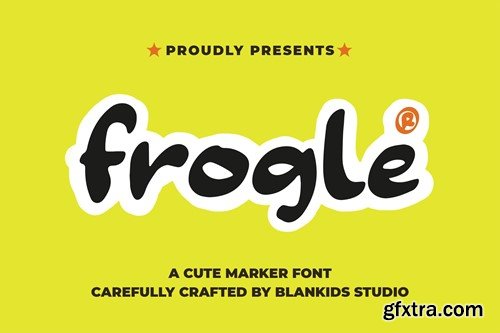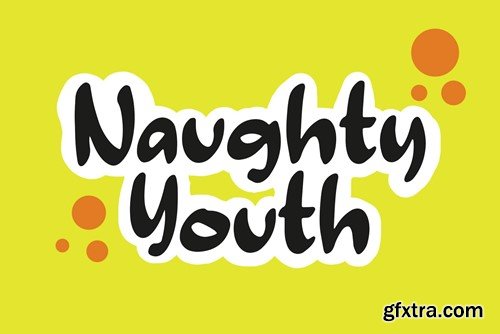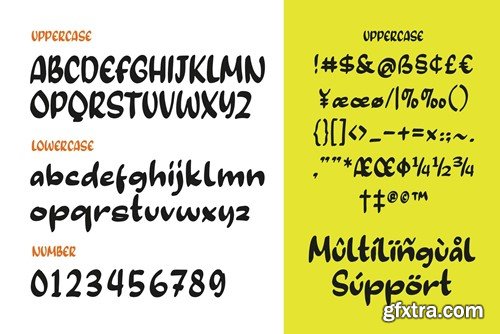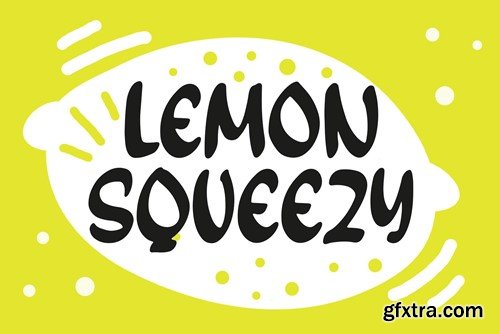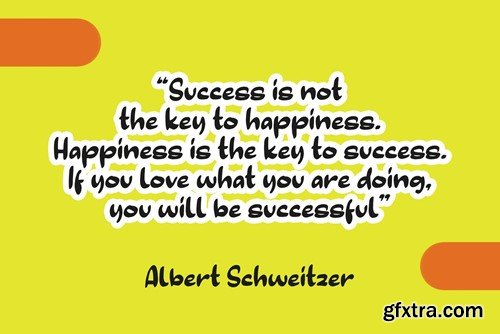
青蛙可爱的标记字体GHYCSGV
Frogle a Cute Marker Font
"Frogle" is a delightful blend of handwriting, marker strokes, and natural calligraphy. This unique font is designed to bring a playful and funny touch to your designs. Whether you're creating for personal projects or corporate needs with a theme that leans towards playfulness, "Frogle" is the perfect companion. FILE INCLUDES :